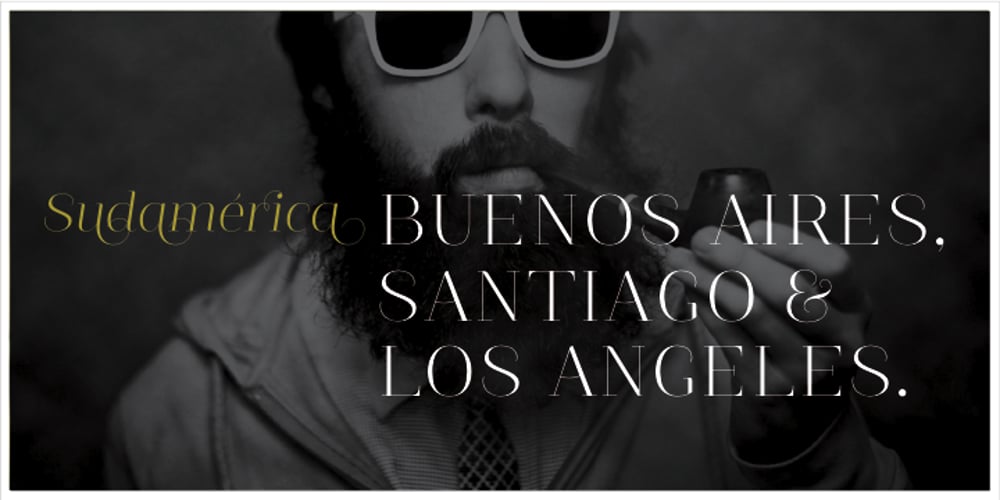
Guadalupe
Guadalupe font
Guadalupe Font Family was designed by Daniel Hernández and published by Latinotype. Guadalupe contains 8 styles and family package options. Guadalupe –from the family of classic Didots– is a high performance font with a great set of alternates & swashes and carefully refined details. Especially suited for fashion magazines, logotypes and luxury contexts with a range of two different terminal versions; “Regular” –a classic roman typeface– and “Gota”, much more expressive for word setting.